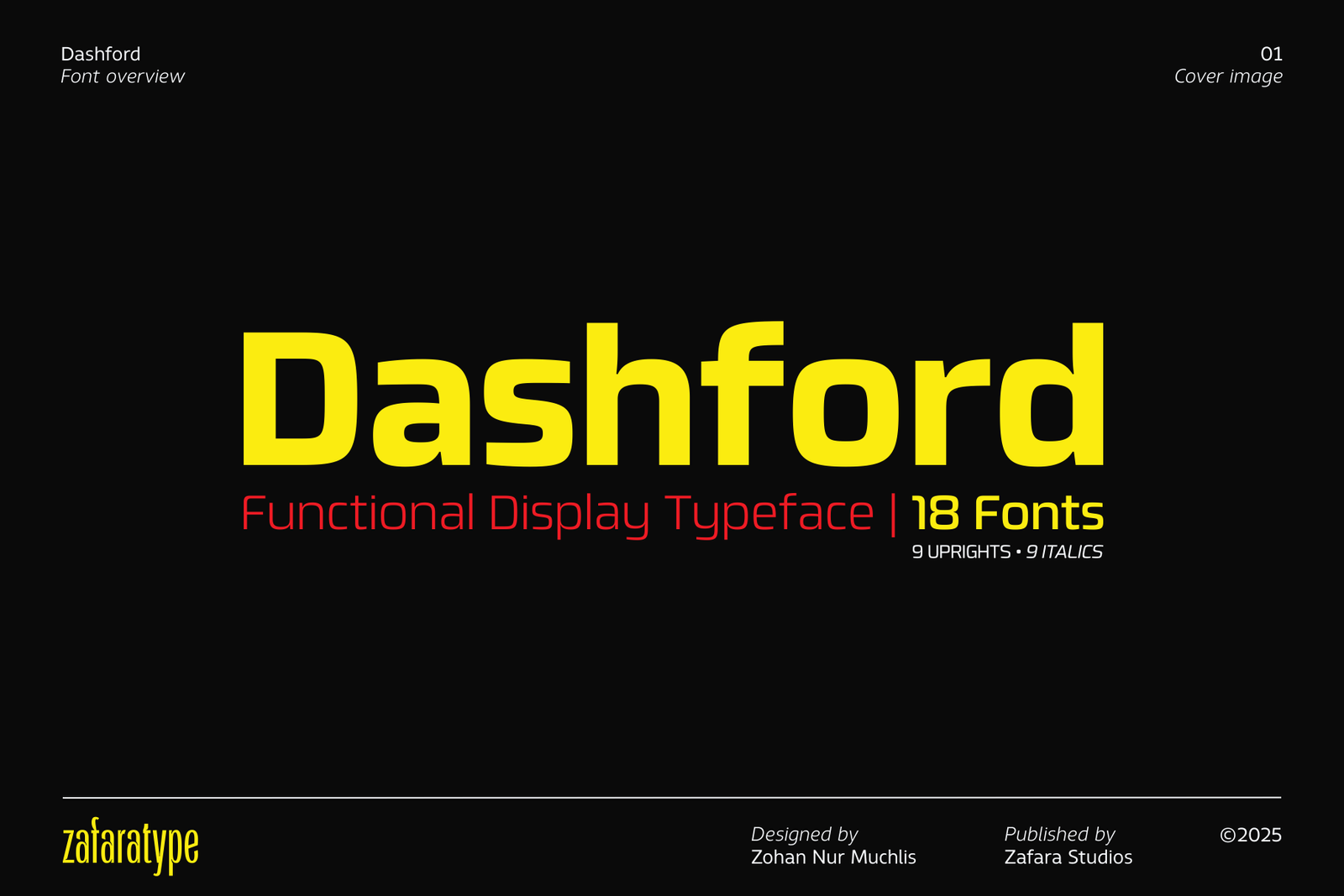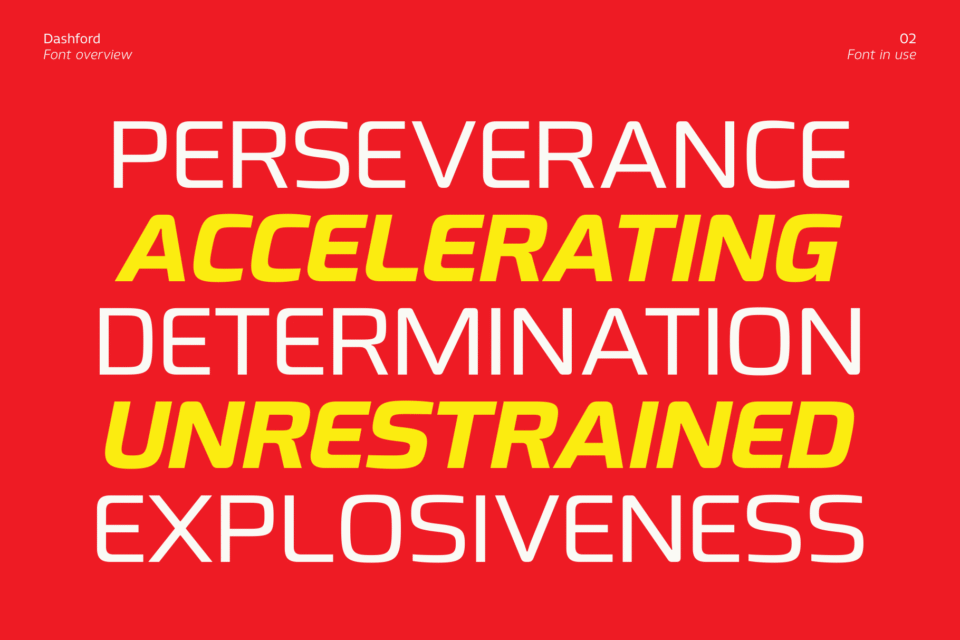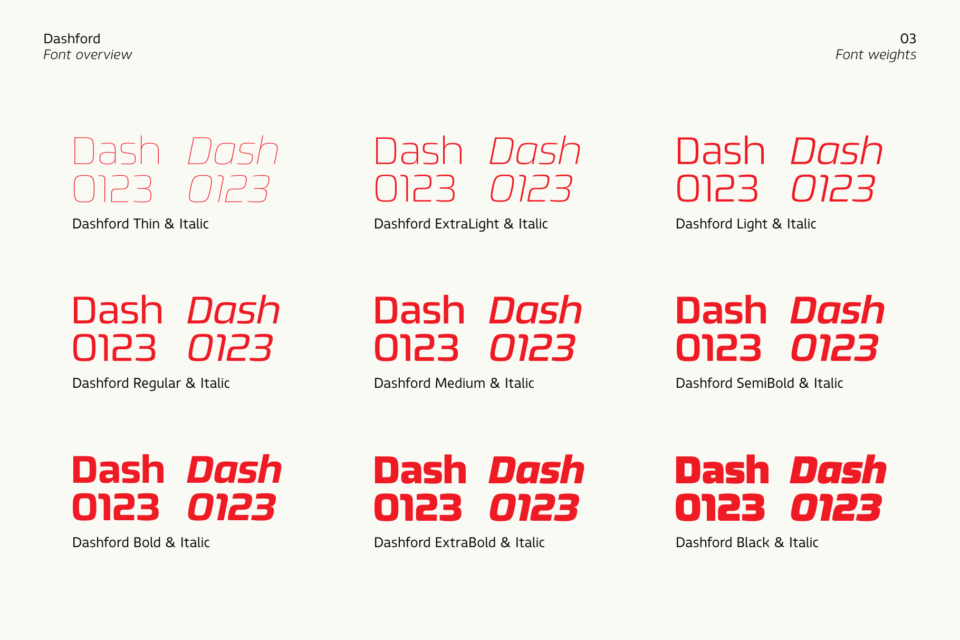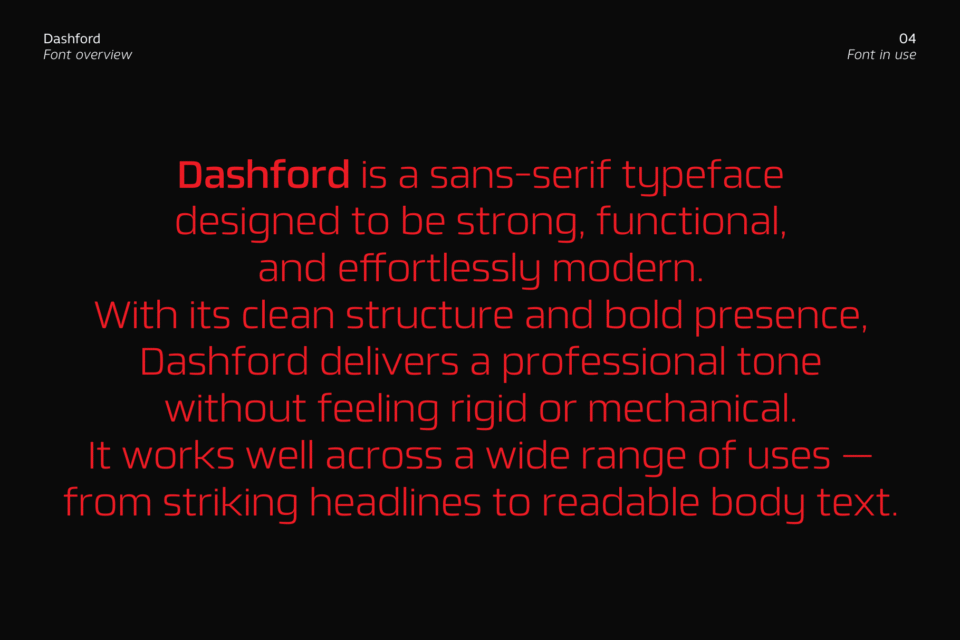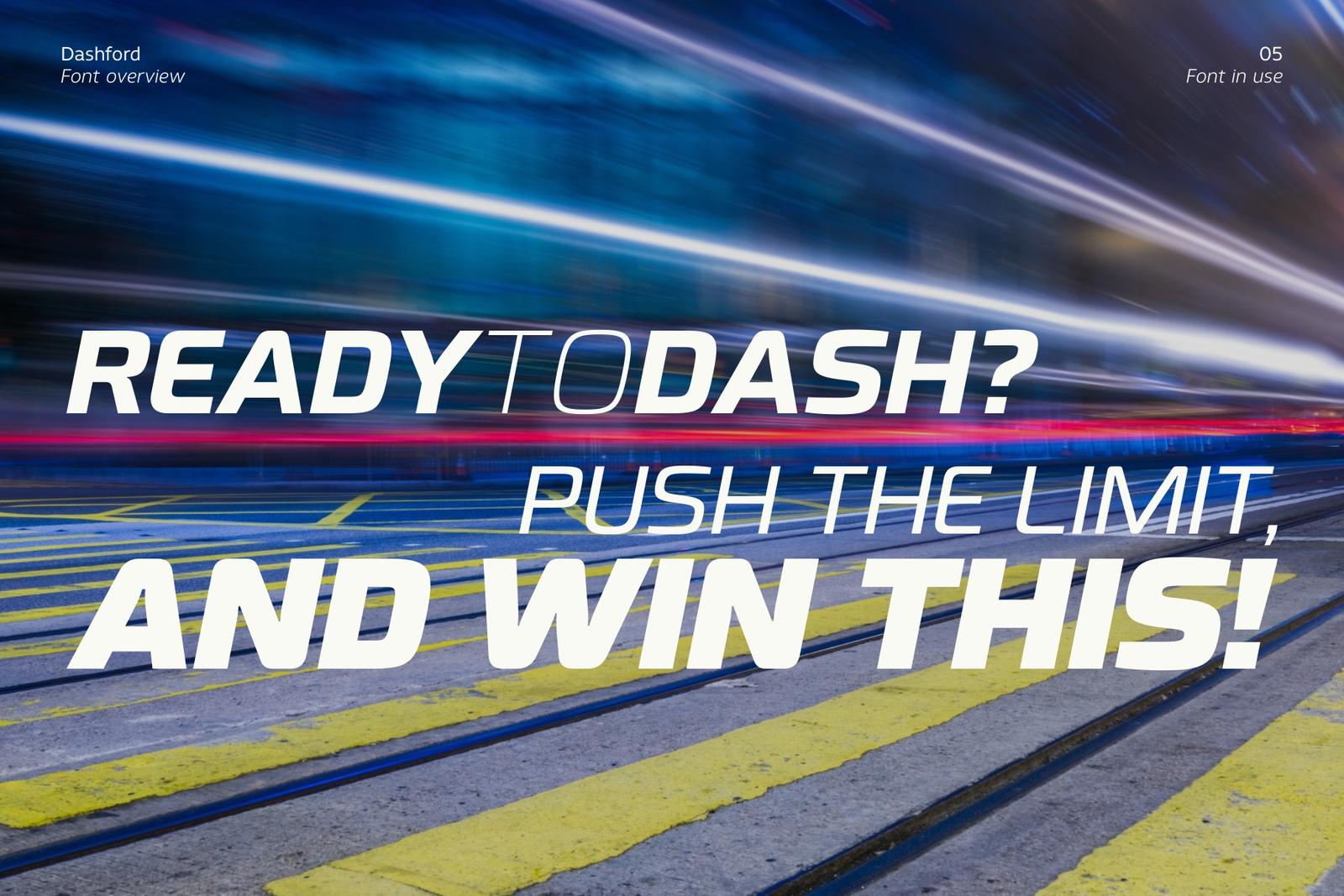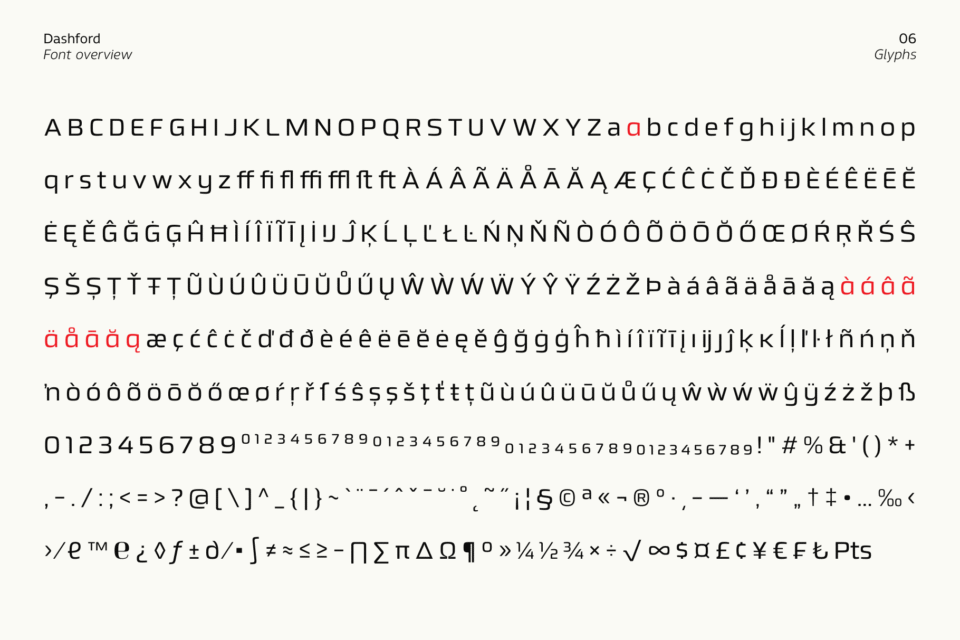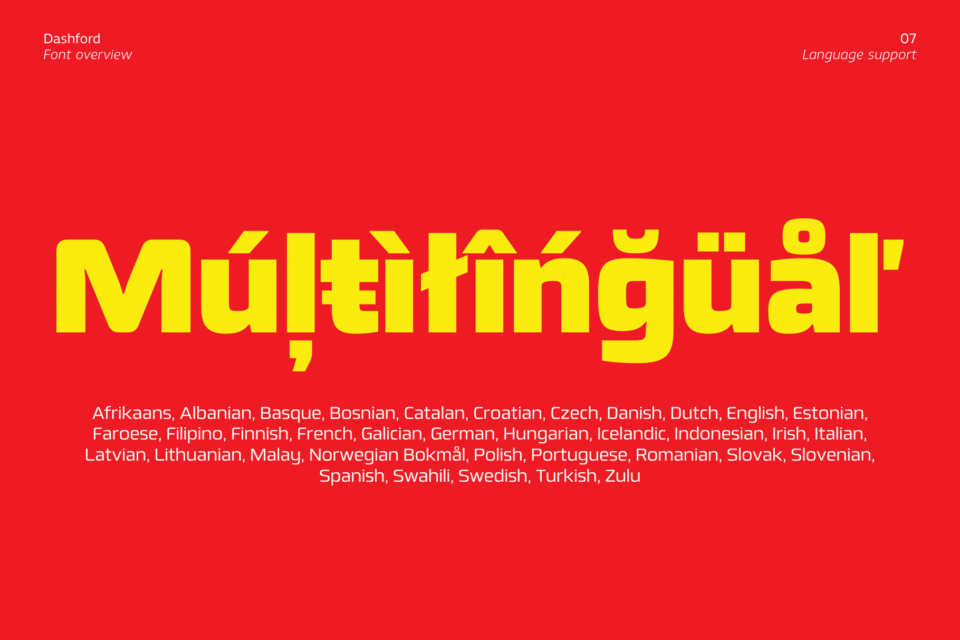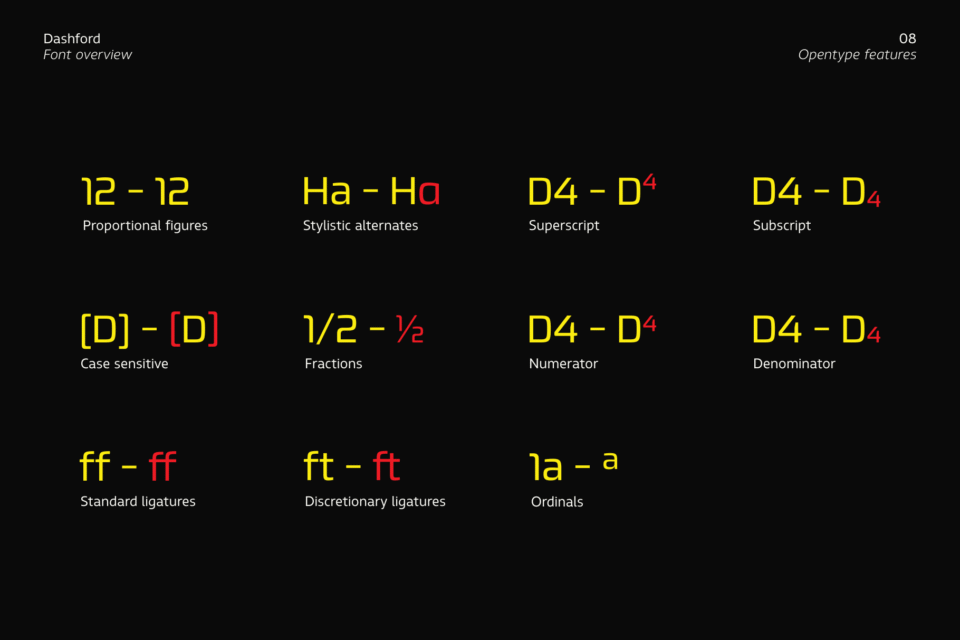
Dashford font cover image showing the brand name in a bold, yellow sans-serif typeface with "Functional Display Typeface" and "18 Fonts" below.
A red background with five large, bold words in white and yellow: PERSEVERANCE, ACCELERATING, DETERMINATION, UNRESTRAINED, and EXPLOSIVENESS, using the Dashford font.
An overview of the Dashford font's nine weights, from Thin to Black, shown with their corresponding italics. Each weight displays the text "Dash Dash 0123."
A paragraph of red text on a dark gray background, explaining that the Dashford font is a sans-serif typeface that works well for both headlines and readable body text.
A headline in the Dashford font with a motion blur background. The words "READY TO DASH? PUSH THE LIMIT, AND WIN THIS!" are displayed in a white, italic font.
A complete overview of all the glyphs in the Dashford font, including uppercase and lowercase letters, numbers, symbols, and various accented characters.
The word "Multilingual" is displayed in the Dashford font in a large yellow font on a red background. Below it is a list of languages the font supports.
A grid of examples showing the various OpenType features of the Dashford font, including proportional figures, fractions, ligatures, and subscripts.
A paragraph of red text on a light gray background, using the Dashford font to talk about "Level Up" and "100% In, 0% Doubt!"
Dashford font cover image showing the brand name in a bold, yellow sans-serif typeface with "Functional Display Typeface" and "18 Fonts" below.
A red background with five large, bold words in white and yellow: PERSEVERANCE, ACCELERATING, DETERMINATION, UNRESTRAINED, and EXPLOSIVENESS, using the Dashford font.
An overview of the Dashford font's nine weights, from Thin to Black, shown with their corresponding italics. Each weight displays the text "Dash Dash 0123."
A paragraph of red text on a dark gray background, explaining that the Dashford font is a sans-serif typeface that works well for both headlines and readable body text.
A headline in the Dashford font with a motion blur background. The words "READY TO DASH? PUSH THE LIMIT, AND WIN THIS!" are displayed in a white, italic font.
A complete overview of all the glyphs in the Dashford font, including uppercase and lowercase letters, numbers, symbols, and various accented characters.
The word "Multilingual" is displayed in the Dashford font in a large yellow font on a red background. Below it is a list of languages the font supports.
A grid of examples showing the various OpenType features of the Dashford font, including proportional figures, fractions, ligatures, and subscripts.
A paragraph of red text on a light gray background, using the Dashford font to talk about "Level Up" and "100% In, 0% Doubt!"